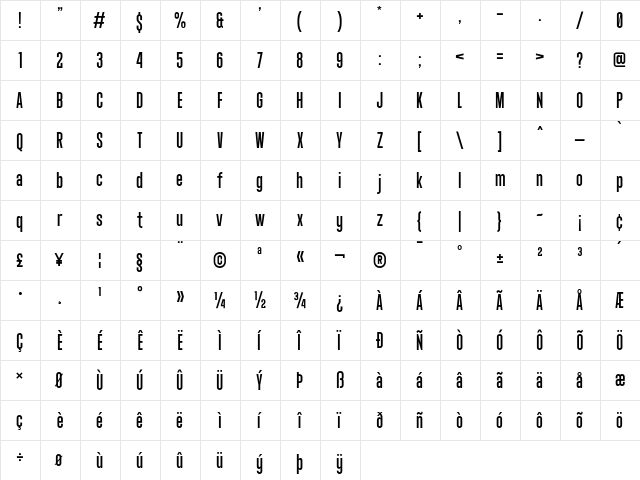
Landasans_demo01 Regular
| Foundry | Mantra Aksara |
| Designer | AnchaMK |
Design Context for Landasans_demo01 Typeface
Landasans_demo01 takes a measured approach to typography — its balanced proportions and neutral character make it a reliable workhorse for both digital and print work.